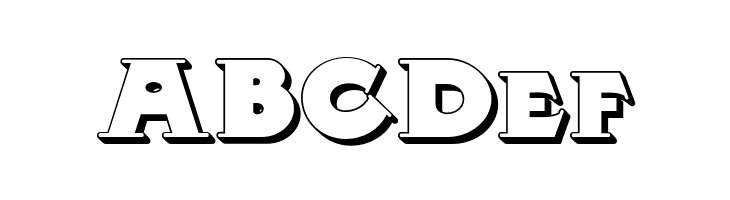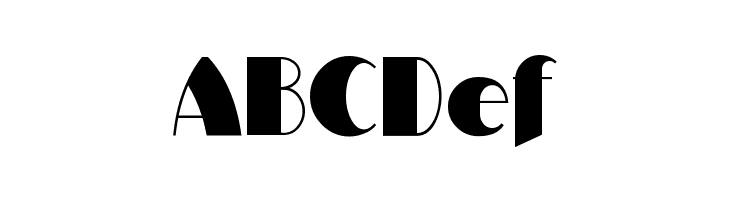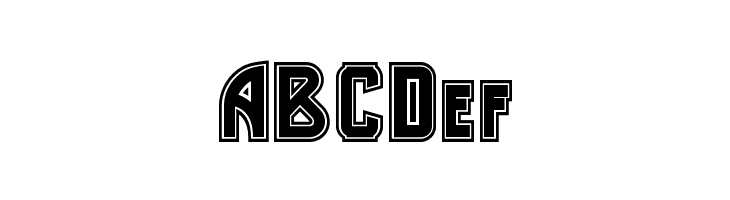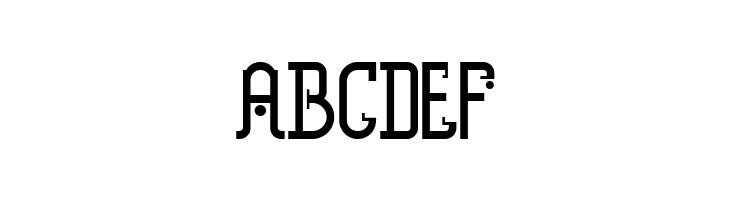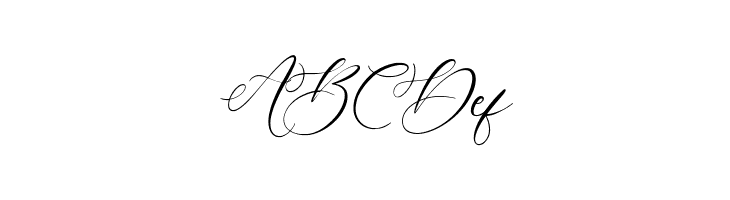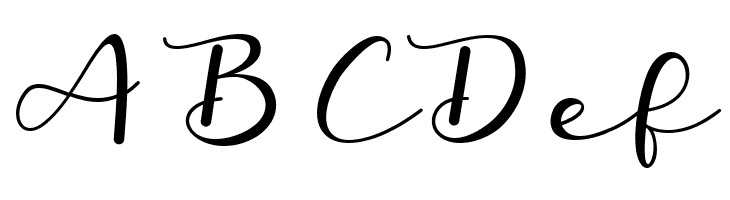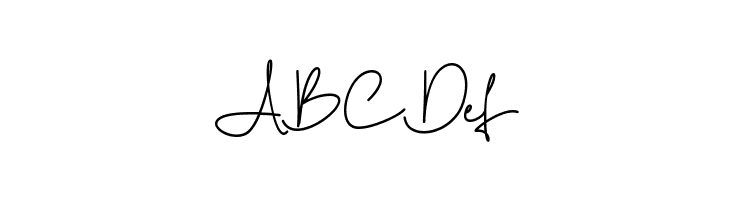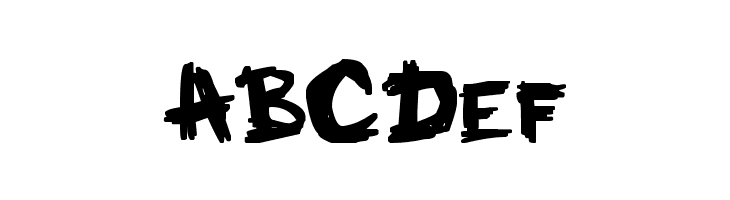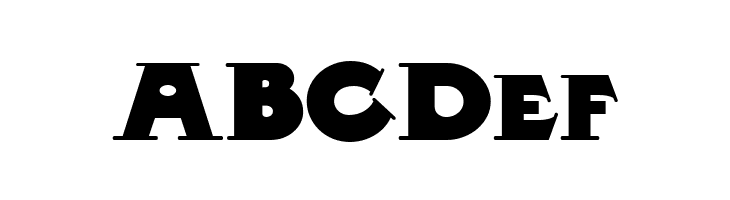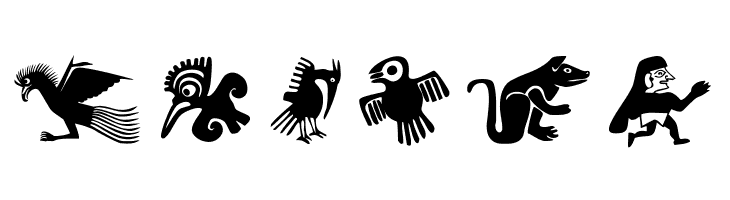
A decorative set of glyphs inspired by Mesoamerican fauna, featuring intricate and bold designs.
A bold graffiti-style font with dynamic, energetic characters.
A bold, textured font with a metallic, industrial design and rounded, curvy letters.
A bold, textured font with a metallic, curvy design and crosshatch pattern.
A bold, industrial font with a gritty, metallic texture.
A bold, industrial-style font with a rugged, mechanical appearance.
A futuristic and sleek font with elongated, curved letterforms.
A futuristic, sleek font with elongated, geometric letterforms.
A decorative font with retro and modern influences, featuring bold geometric shapes and intricate patterns.
A bold, geometric font with decorative circular elements.
A bold, decorative font with retro patterns and intricate detailing.
A bold, futuristic font with geometric and abstract elements.
A whimsical, romantic script font with decorative heart accents.
A charming script font with elegant, flowing characters and medium contrast.
A cursive, handwritten-style font with elegant, flowing characters.
A dynamic and expressive script font with fluid, cursive strokes.
A bold, outlined font with a fantasy-inspired, geometric style.
Decorative medieval-themed pictorial font with detailed character illustrations.
A bold, decorative font with a fantasy-inspired, angular design.
A bold, geometric font with vintage railway-inspired design.
A bold, shadowed font with a vintage yet modern aesthetic.
A bold, shadowed font with a vintage flair, perfect for standout headlines.
A playful and whimsical script font with flowing, interconnected letters.
An elegant, flowing script font with intricate loops and high contrast.
A whimsical and playful font with curly, looping strokes and decorative flair.
A bold, theatrical font with dramatic curves and vintage flair.
A bold, Art Deco-inspired font with high contrast and geometric shapes.